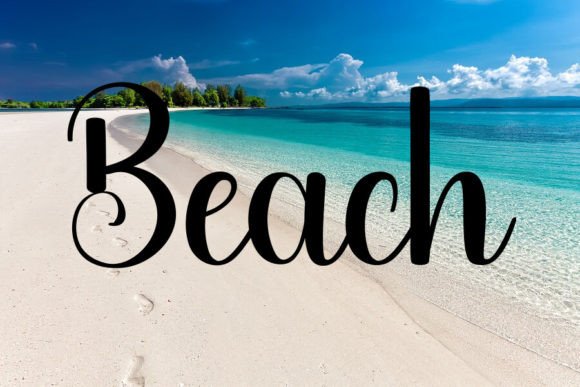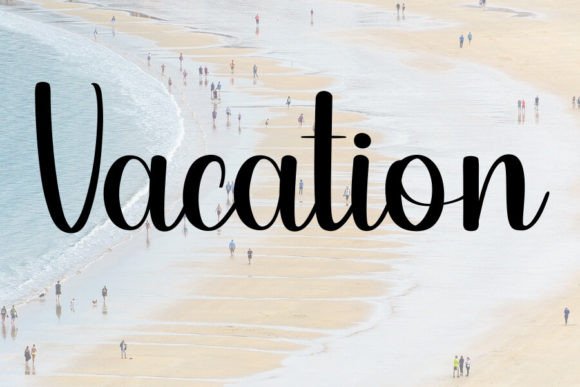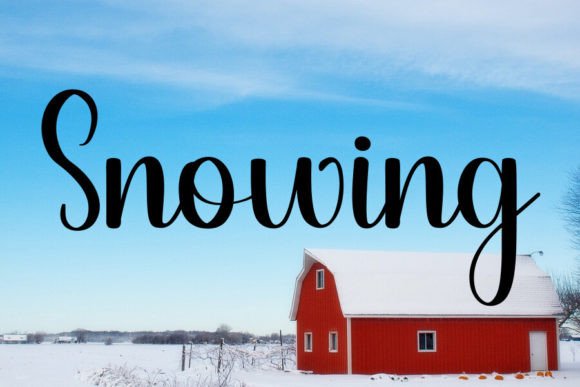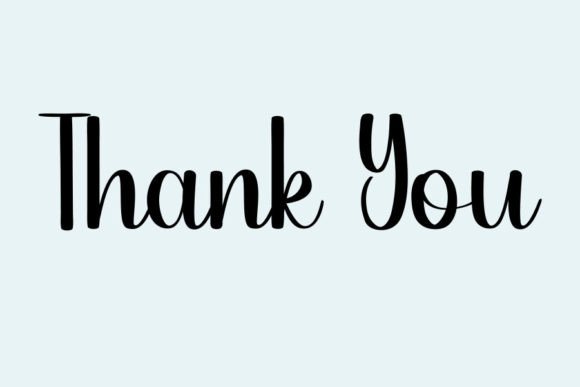
Introducing Big Baby Font: The Ultimate Handwritten Font for Designers and Crafters
Are you tired of using the same old fonts for your designs and crafts? Look no further than Big Baby Font, a fun and friendly handwritten font that’s perfect for a variety of projects. Whether you’re a designer, crafter, or simply someone who loves to make greeting cards, Big Baby Font is sure to become your new go-to font.
What is Big Baby Font?
Big Baby Font is a handwritten font that’s designed to be both fun and functional. Its playful, cursive style makes it perfect for a wide range of projects, from digital designs and presentations to crafts and greeting cards. The font is easy to read and has a friendly, approachable feel that’s sure to appeal to audiences of all ages.
Features of Big Baby Font
So what makes Big Baby Font so special? Here are just a few of its key features:
- Handwritten style: Big Baby Font has a unique, handwritten style that’s perfect for adding a personal touch to your designs.
- Easy to read: Despite its playful style, Big Baby Font is easy to read and understand, making it perfect for use in a variety of contexts.
- Versatile: Big Baby Font can be used for a wide range of projects, from digital designs and presentations to crafts and greeting cards.
- Fun and friendly: The font has a fun and friendly feel that’s sure to appeal to audiences of all ages.
Uses for Big Baby Font
So what can you use Big Baby Font for? The possibilities are endless! Here are just a few ideas to get you started:
- Crafts: Big Baby Font is perfect for use in crafts, such as scrapbooking, card making, and other paper crafts.
- Digital design: The font can be used in digital designs, such as social media graphics, blog posts, and website headers.
- Presentations: Big Baby Font can add a touch of personality to your presentations, making them more engaging and fun.
- Greeting cards: The font is perfect for use in greeting cards, whether you’re making them for special occasions or just to say hello.
Why Choose Big Baby Font?
So why should you choose Big Baby Font for your next project? Here are just a few reasons:
- Unique style: Big Baby Font has a unique, handwritten style that’s sure to stand out from the crowd.
- Versatility: Big Baby Font can be used for a wide range of projects, making it a great addition to your font library.
- Fun and friendly: The font has a fun and friendly feel that’s sure to appeal to audiences of all ages.
In conclusion, Big Baby Font is a fun and friendly handwritten font that’s perfect for designers, crafters, and anyone who loves to make greeting cards. Its unique style, ease of use, and versatility make it a great addition to any font library. So why not give Big Baby Font a try today and see how it can add a touch of personality to your next project?